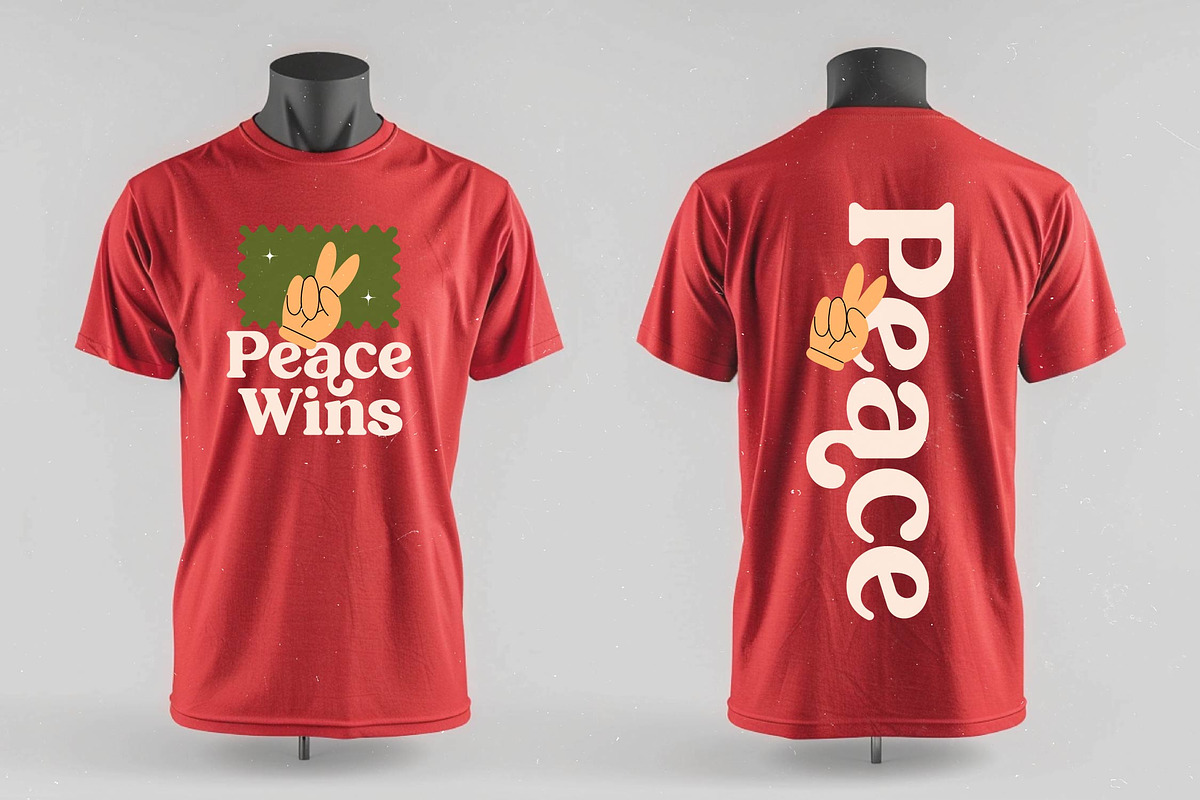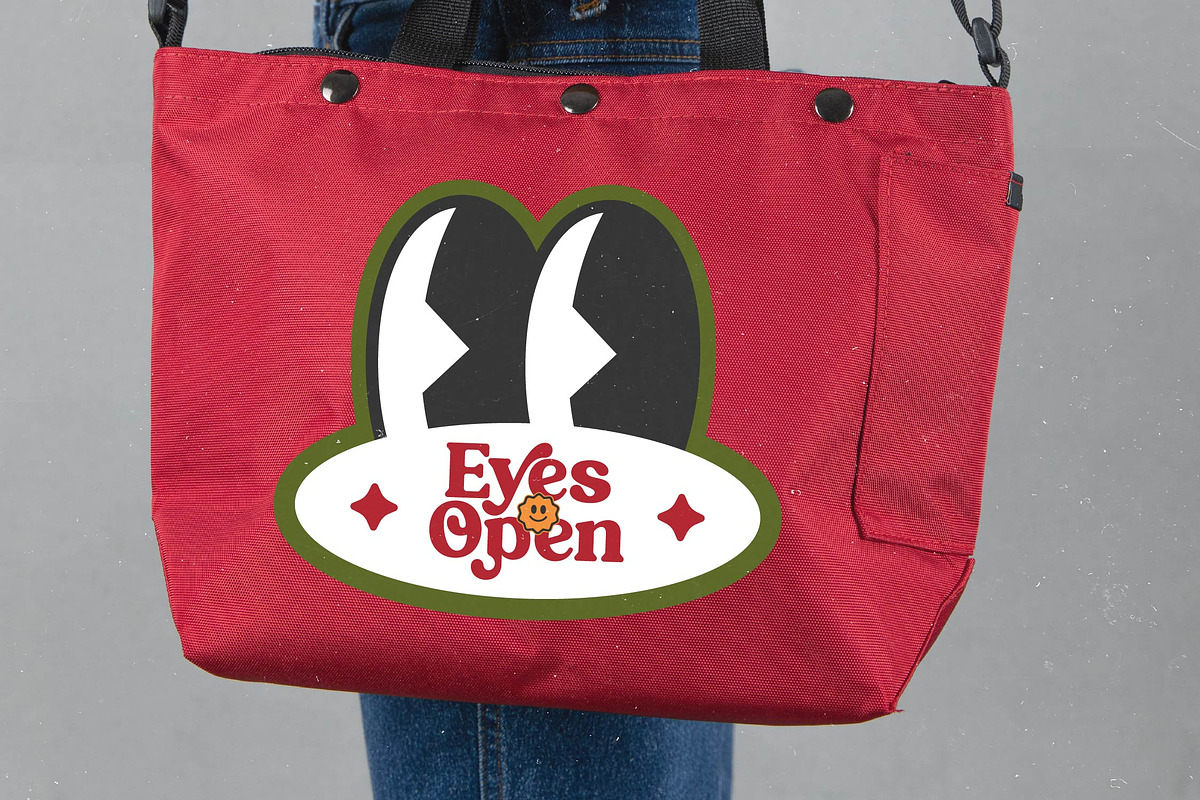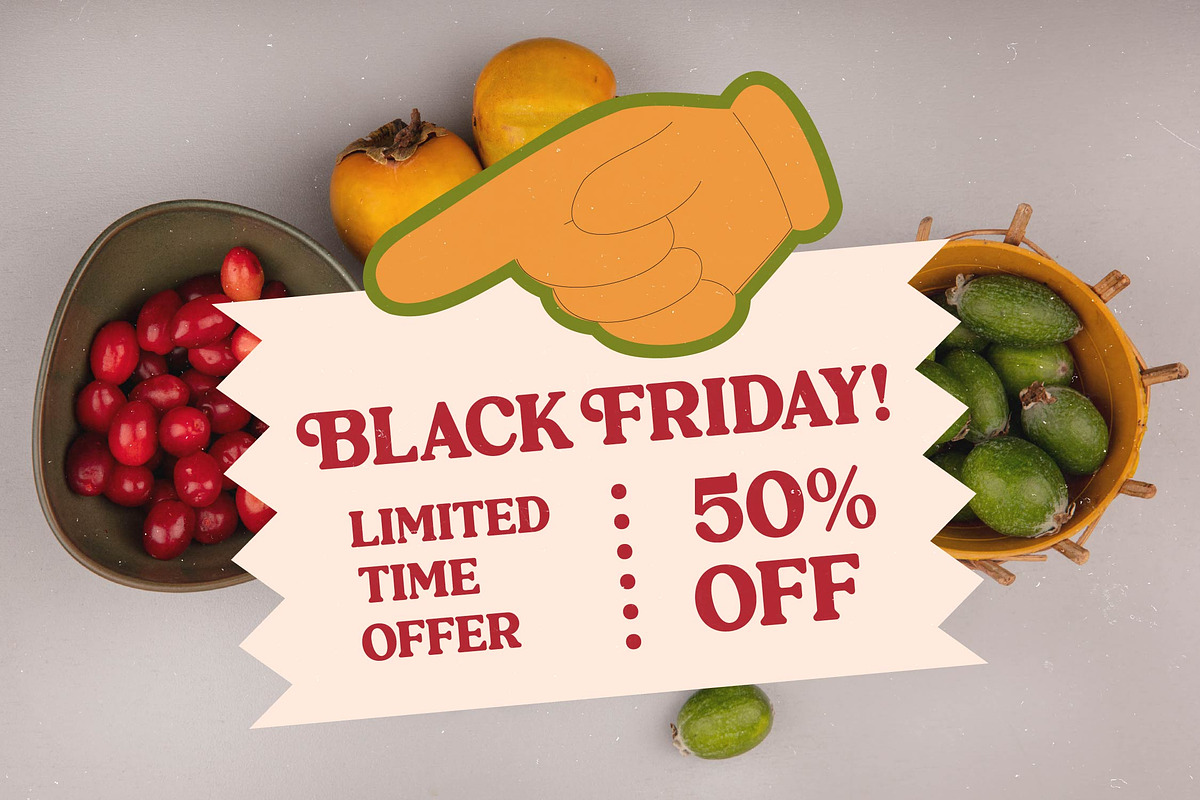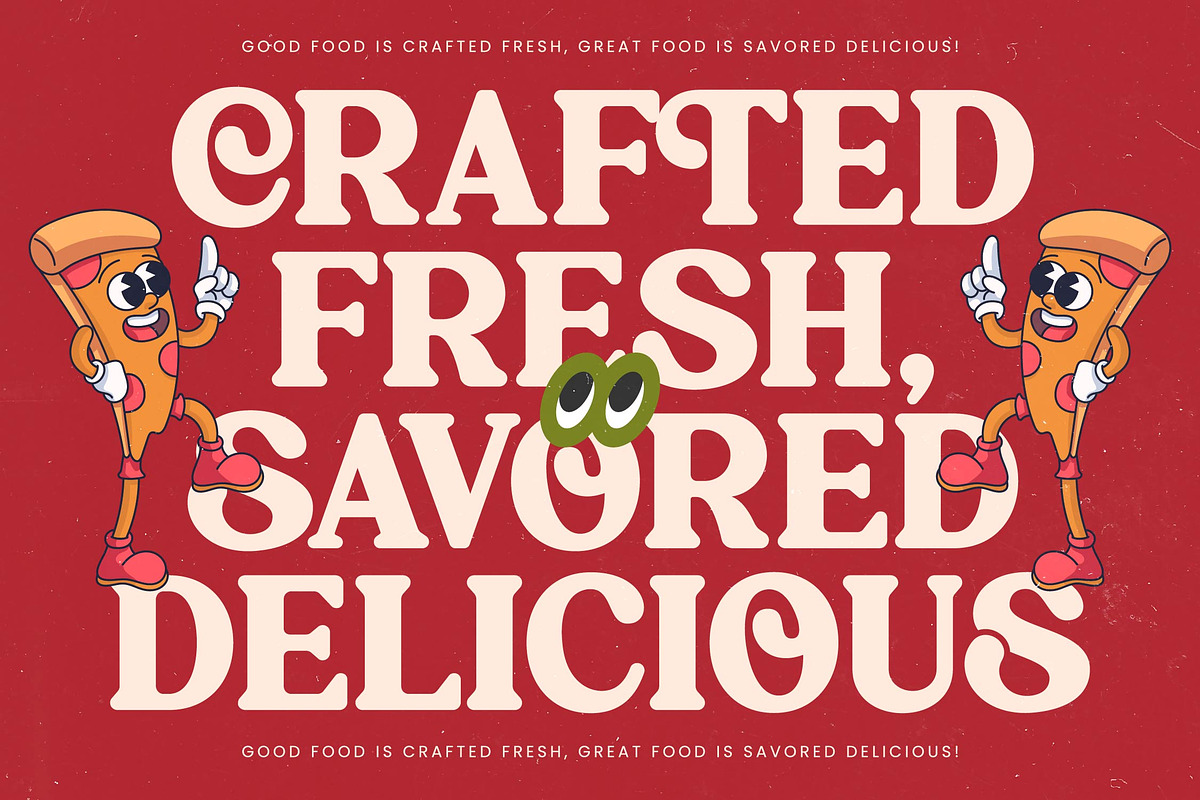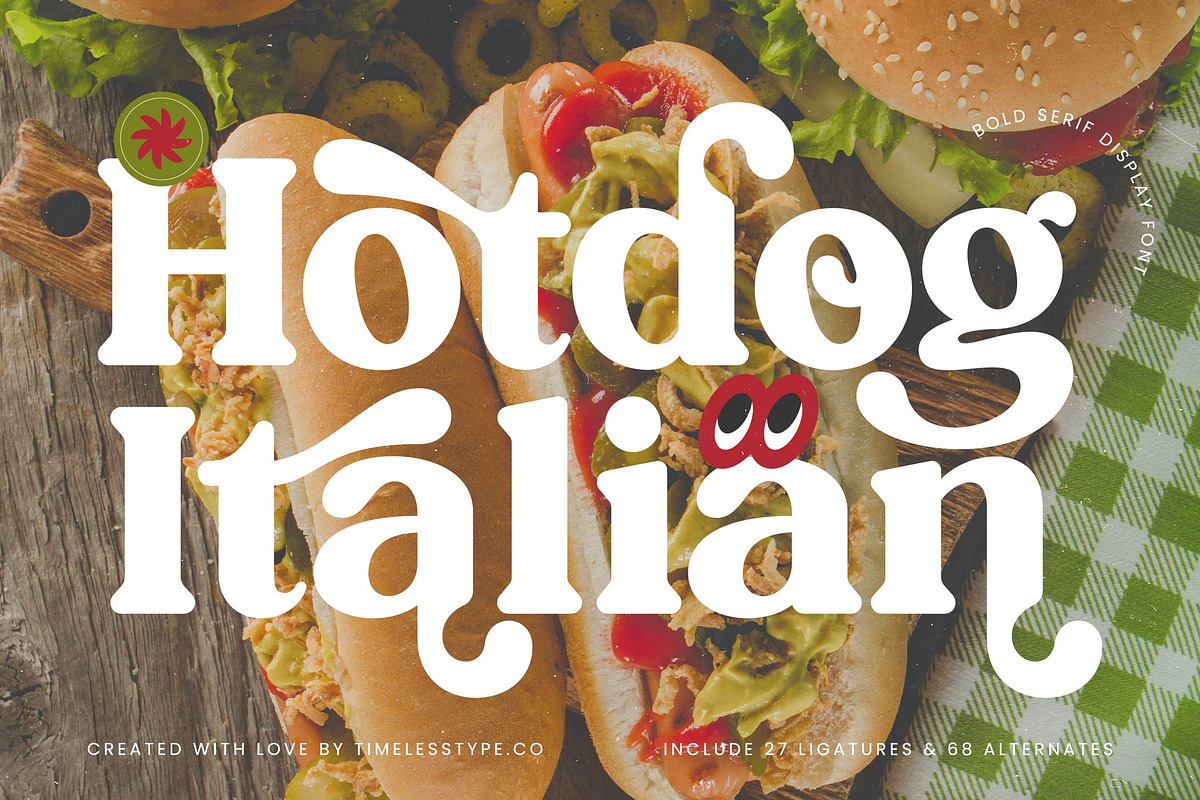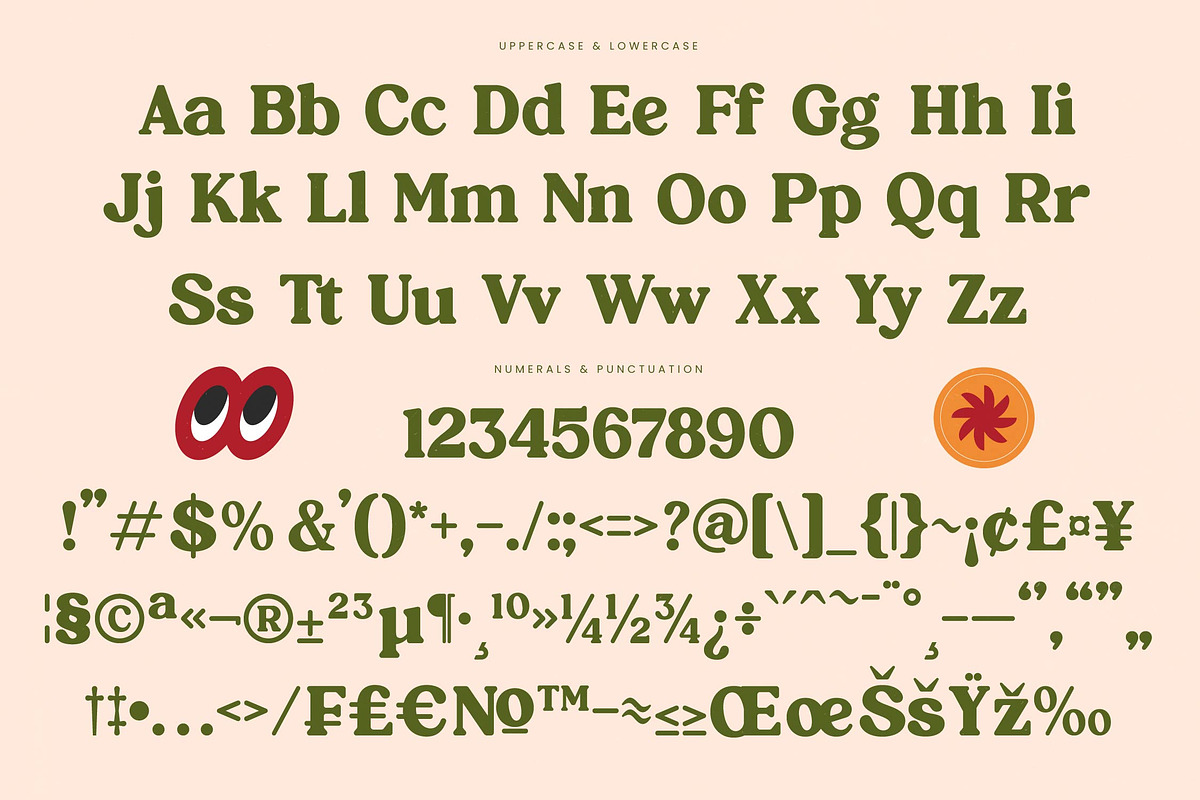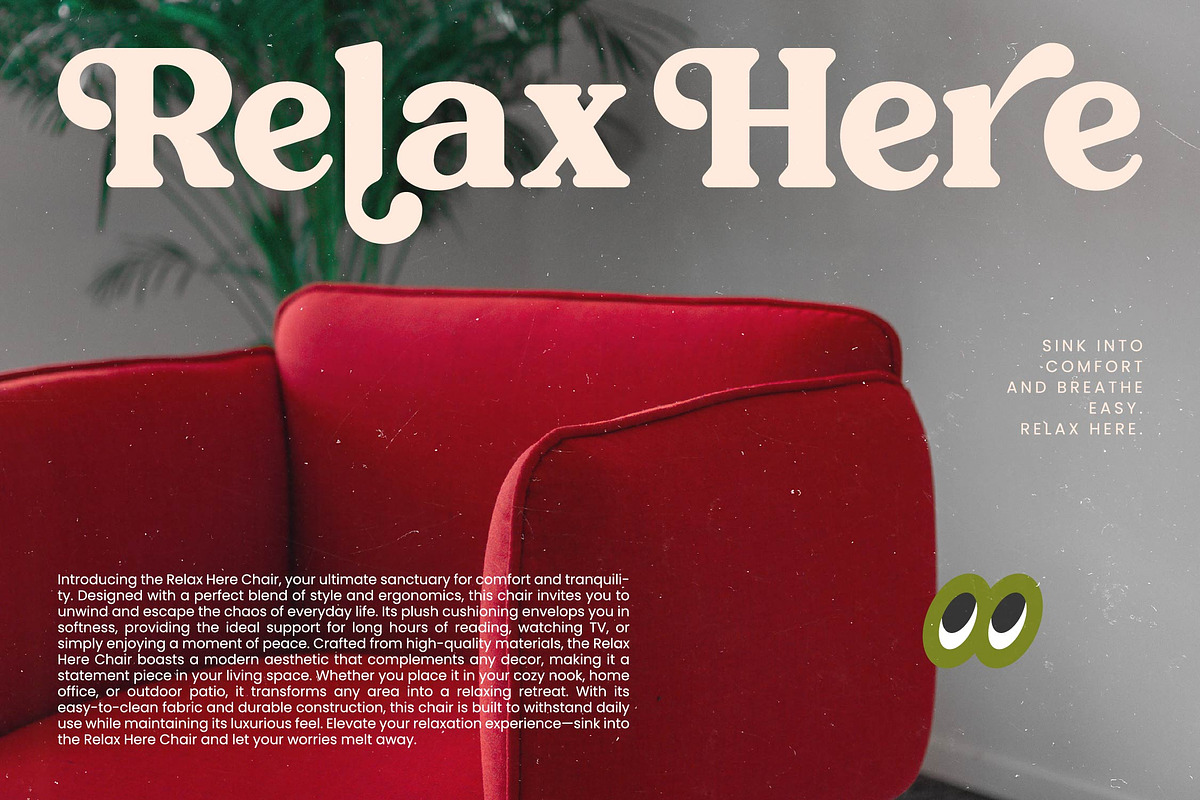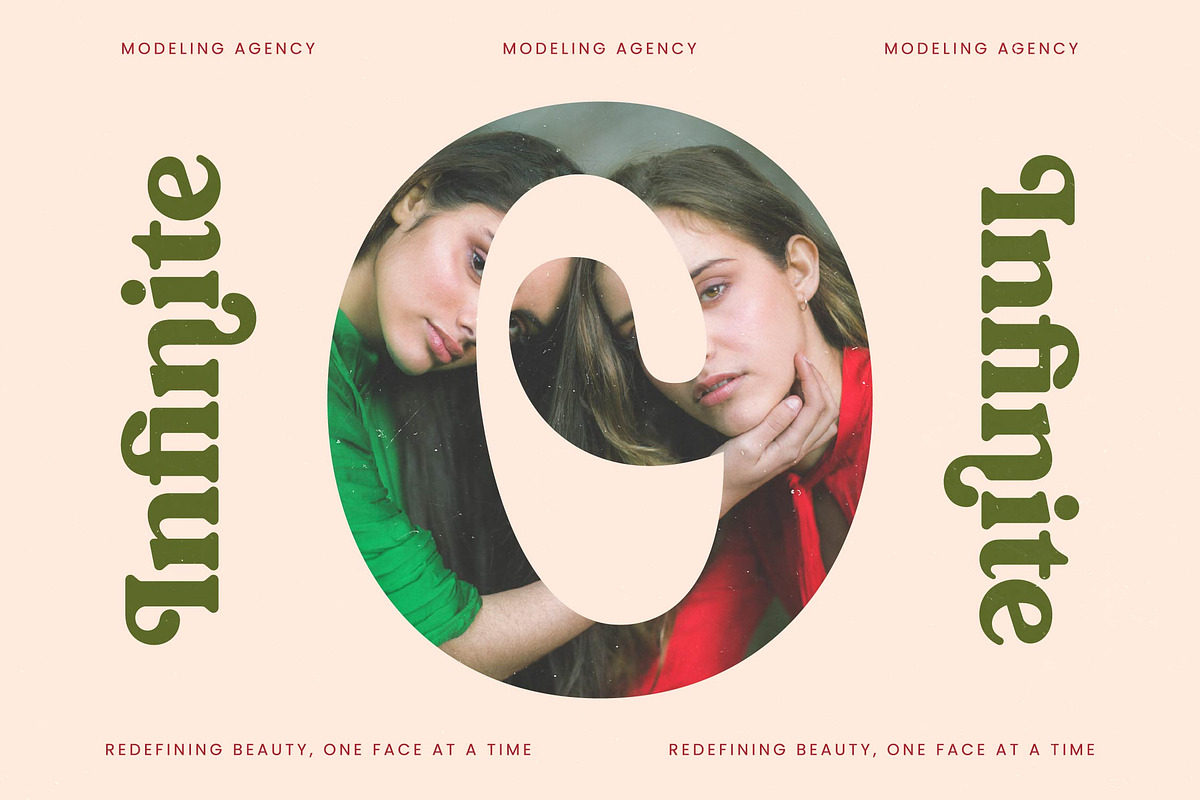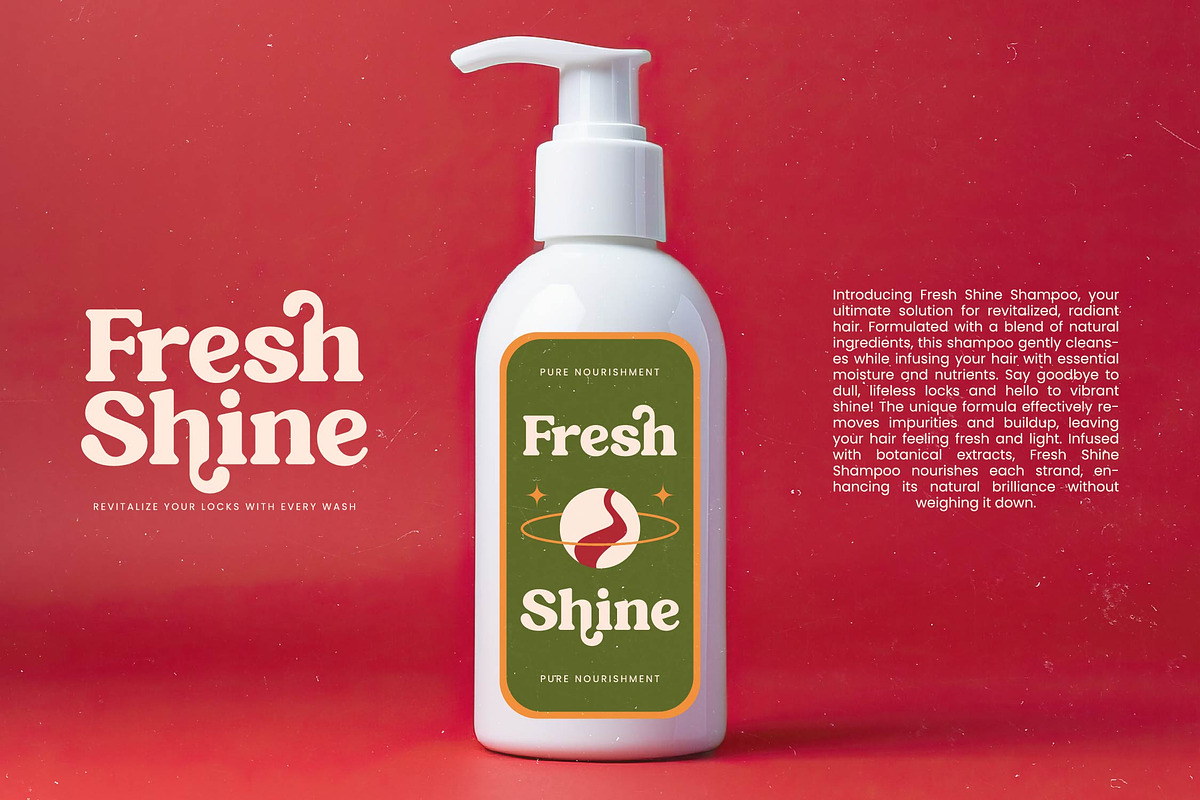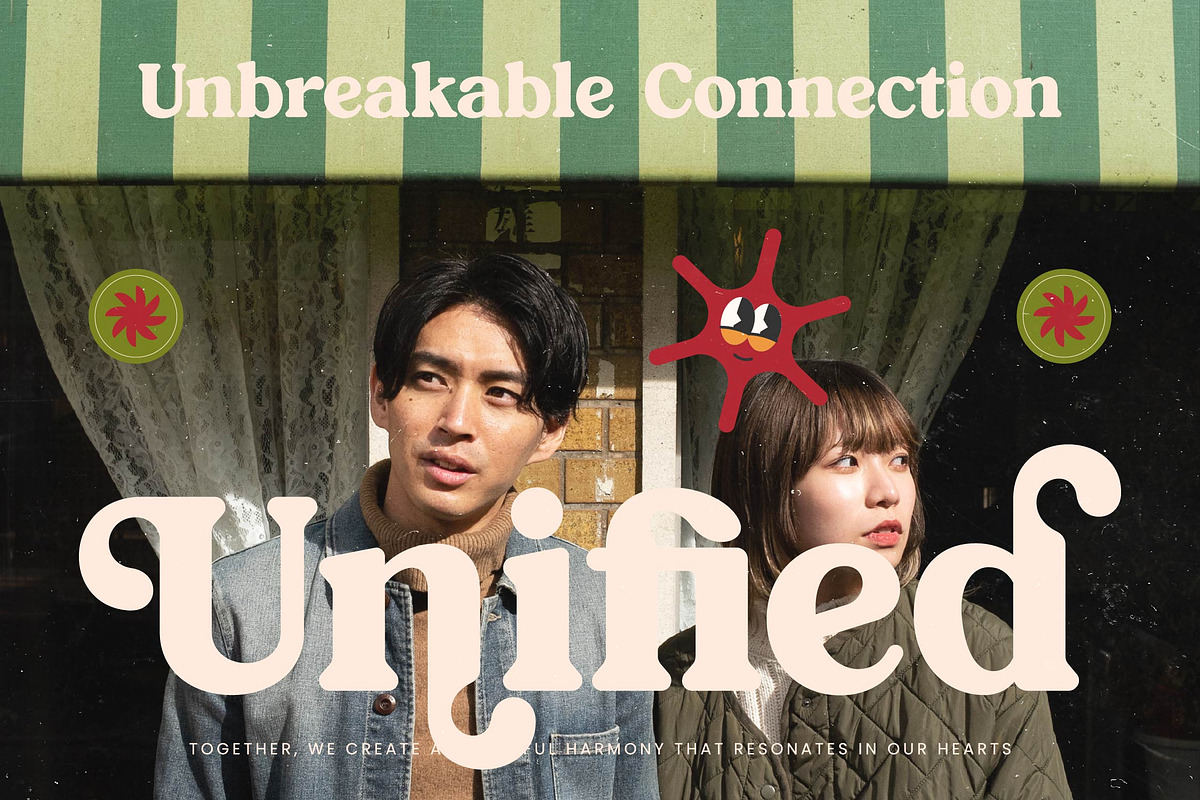
Hotdog Italian Bold Serif Font
Sink your teeth into the bold, flavorful presence of Hotdog Italian, a typeface designed to command attention with a delicious retro twist. It is the perfect recipe for designers seeking a balance between vintage warmth and contemporary confidence.
Inspired by the vibrant street-side aesthetics and classic deli signage, this font captures the essence of communal dining and high-energy city life. Its thick, sturdy strokes are softened by playful curves, evoking a sense of nostalgia for handcrafted advertising and bold 70s-era graphics.
This modern serif display is engineered for branding impact, offering a luxury typography feel that remains accessible and fun. As a high-contrast serif, it functions beautifully as an editorial font that bridges the gap between sophisticated charm and bold, punchy readability.
Embracing the modern serif trend, this typeface is at the forefront of character-driven typography that prioritizes unique visual identity. It satisfies the growing demand for editorial display fonts that feel human and expressive rather than strictly geometric and clinical.
Perfectly suited for logo design and high-end branding projects, its versatility shines across packaging and editorial layouts. Whether it is used for a trendy fashion magazine or a bespoke wedding invitation suite, it delivers a memorable aesthetic every time.
The package includes a rich set of ligatures and alternates that allow for deep customization and creative flair. Complete with swashes, multilingual support, and a full suite of international characters, it ensures your message reaches a global audience with effortless style.
- Ligature 27 Alternate 68